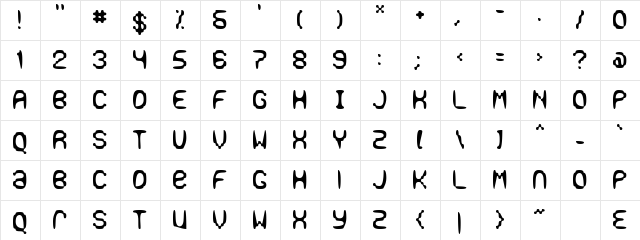
Gaseous Regular
Design Context for Gaseous Typeface
Gaseous is a composed and adaptable typeface that performs quietly and consistently across a wide range of design contexts.